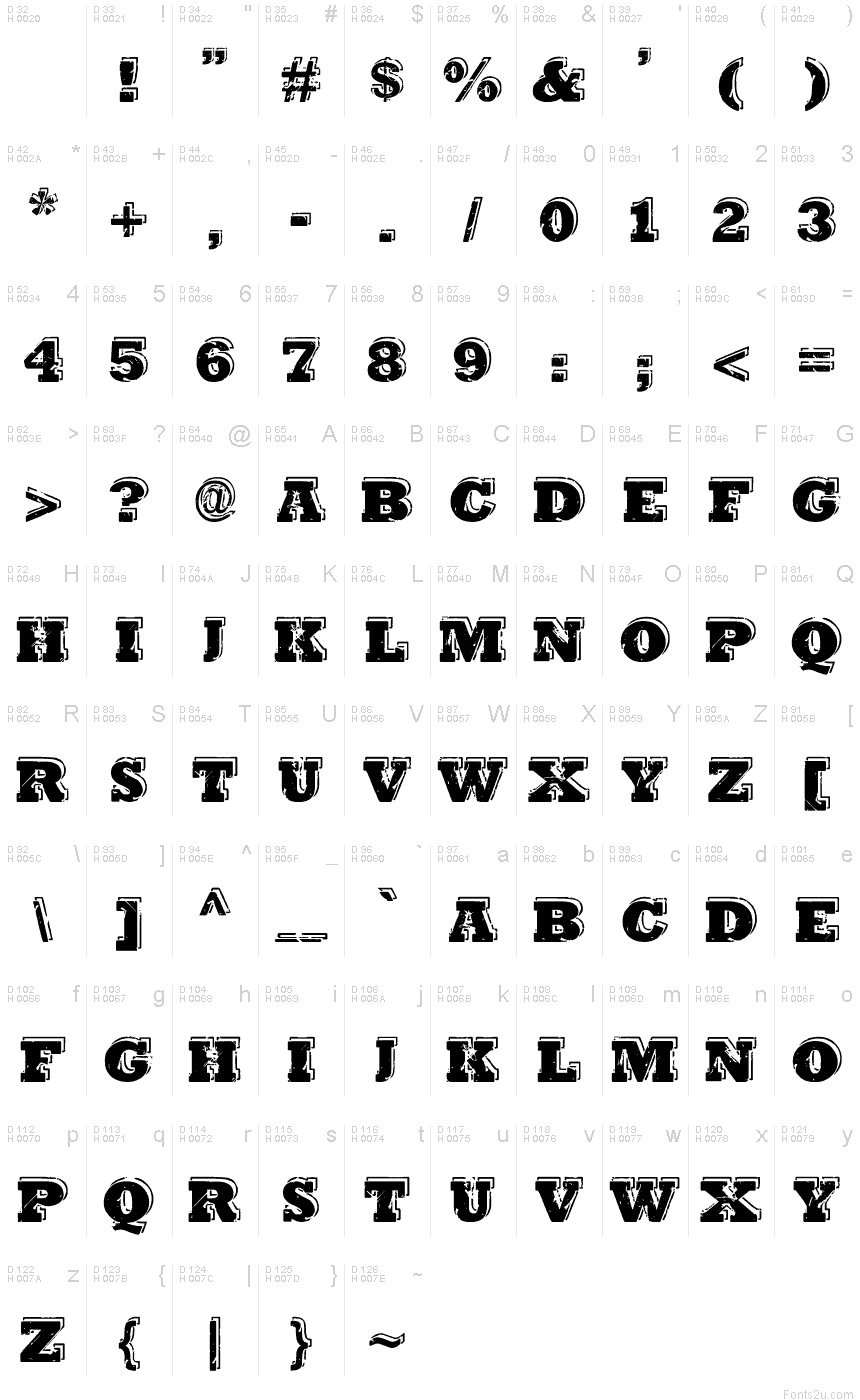
Hangbord DSG
Hangbord DSG font by Dotspot Graphics is a free eroded slab serif typeface with the crash and scrape of weathered wood and peeling paint. Heavy blocky letters are chewed away at the edges, with splatters, gouges, and rough textures that feel like they’ve survived years of posters, walls, and storms. The tight spacing and dense shapes keep it bold and readable, even when the surface looks torn and battered.
Using Hangbord DSG, your titles instantly pick up a raw, distressed attitude that works beautifully for gig posters, horror or thriller covers, streetwear branding, skate zines, protest graphics, and gritty game titles. This free font thrives at large sizes where its texture can really show. For supporting text, pair it with a simple, clean sans‑serif to keep the message clear while Hangbord DSG shouts the headline.